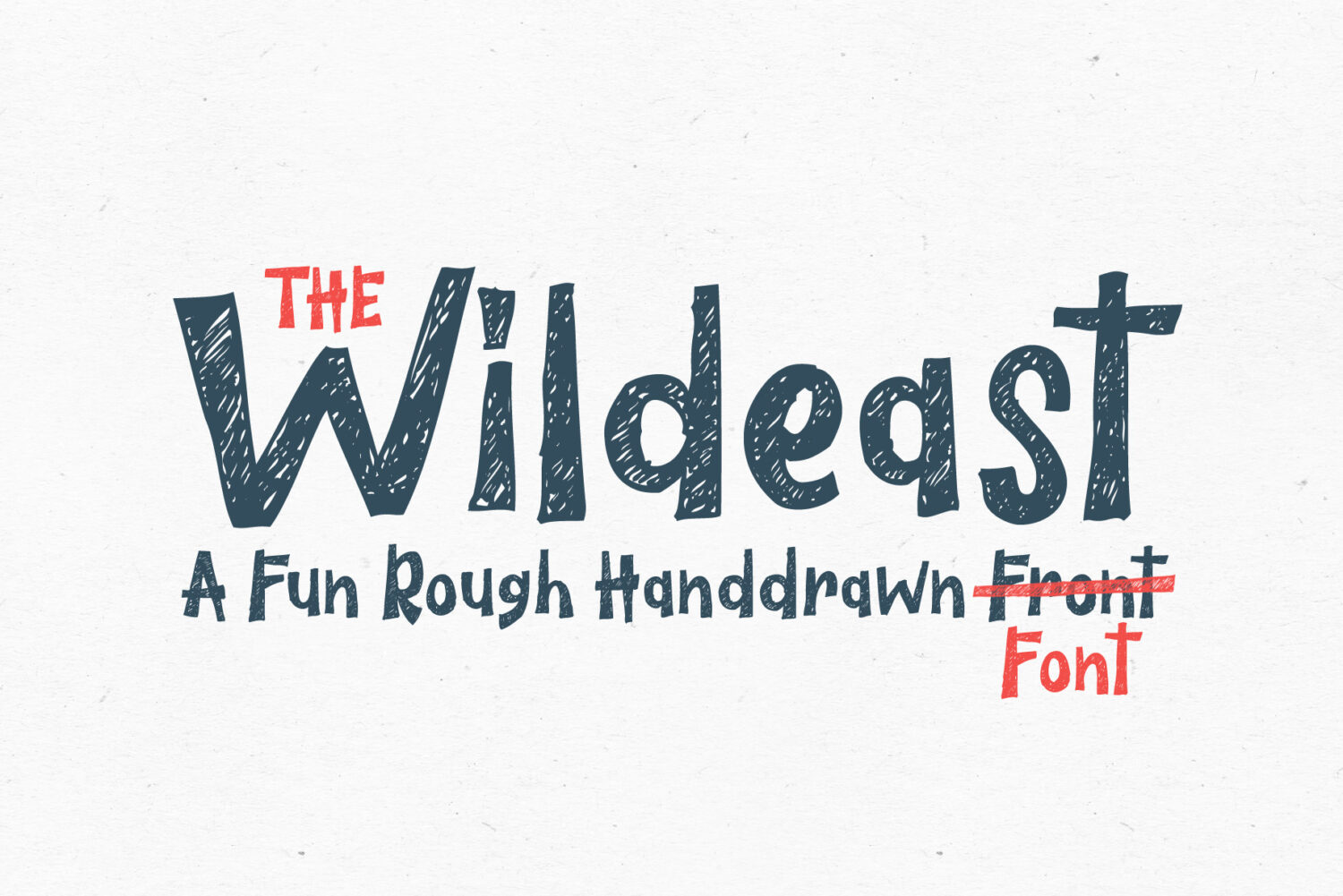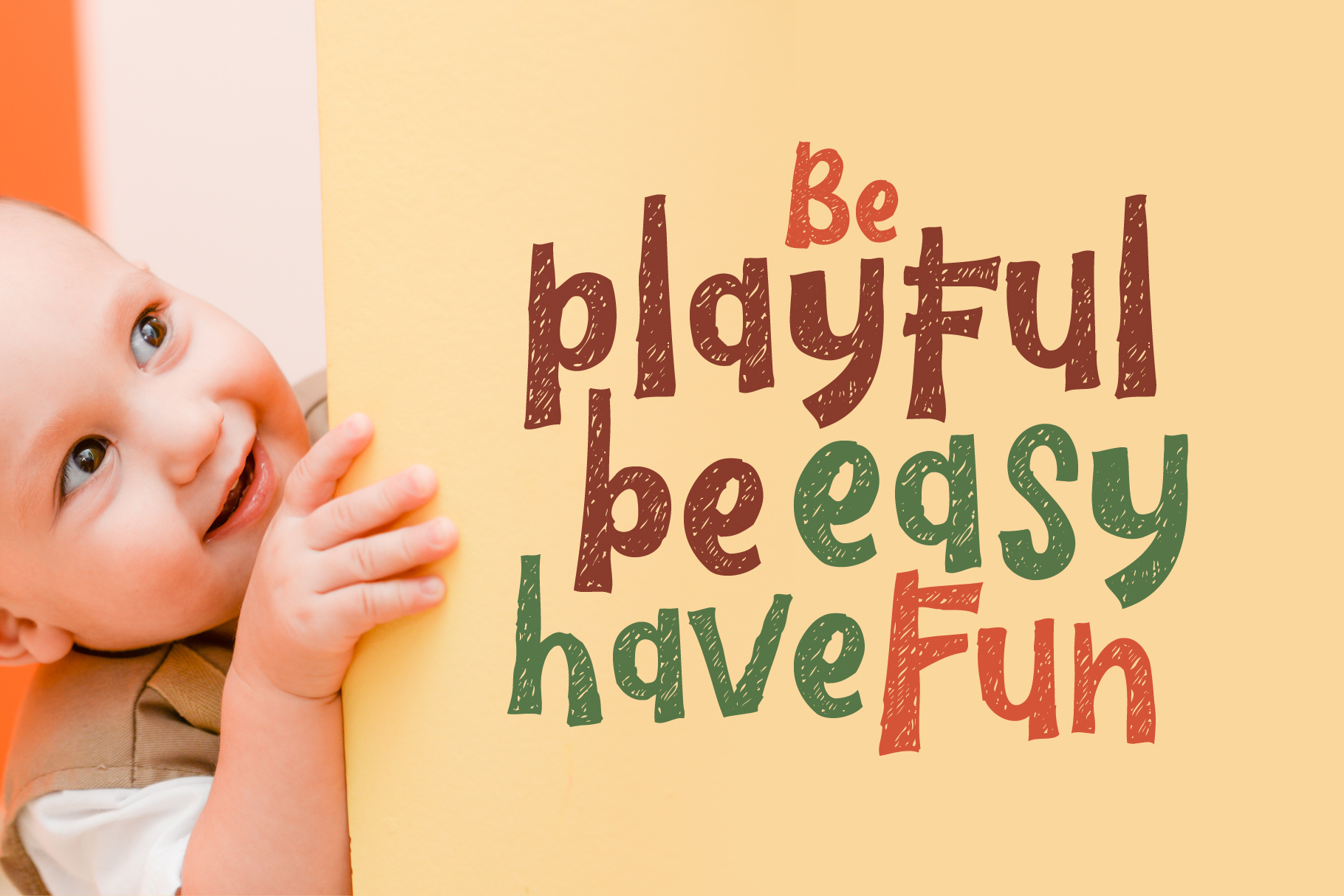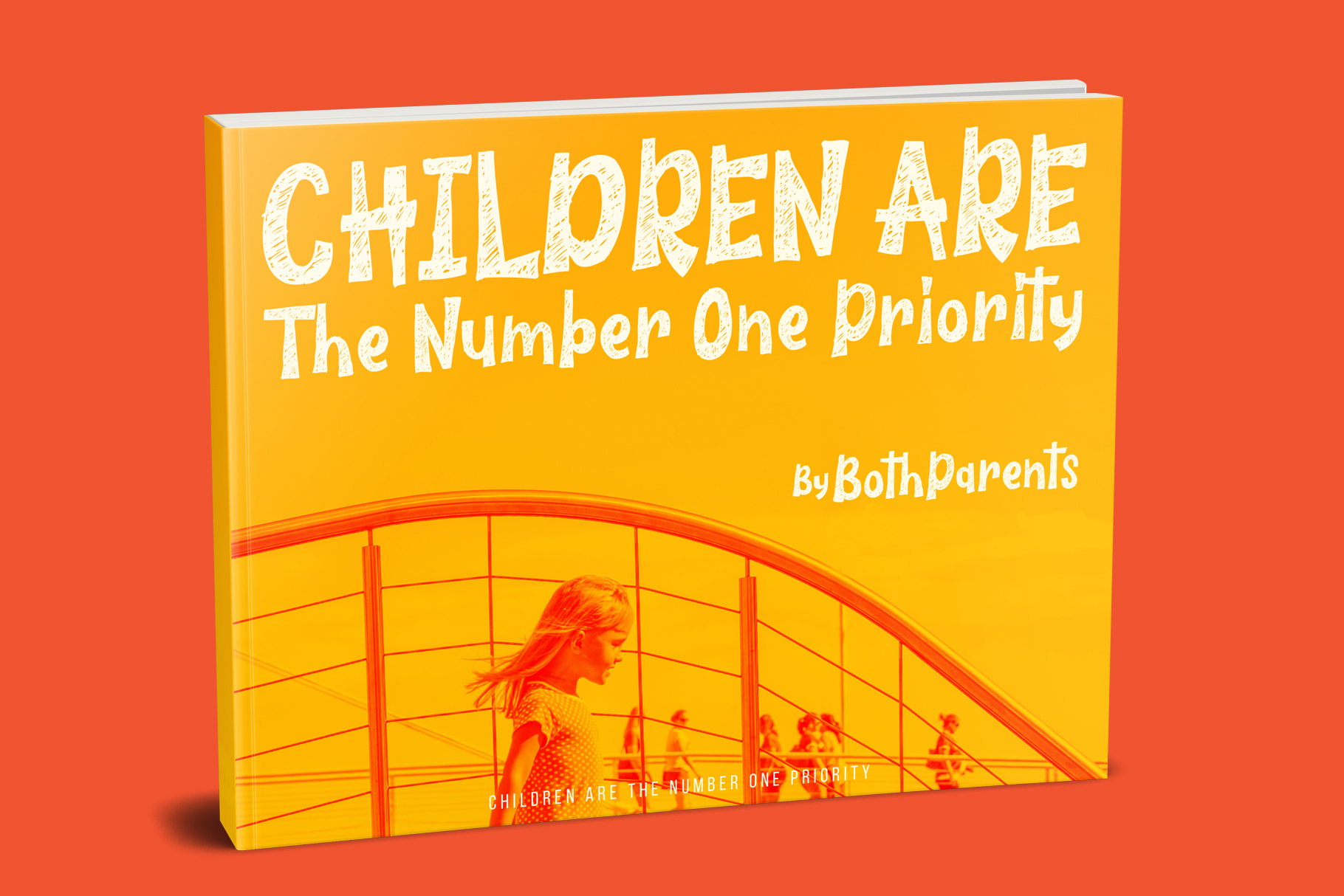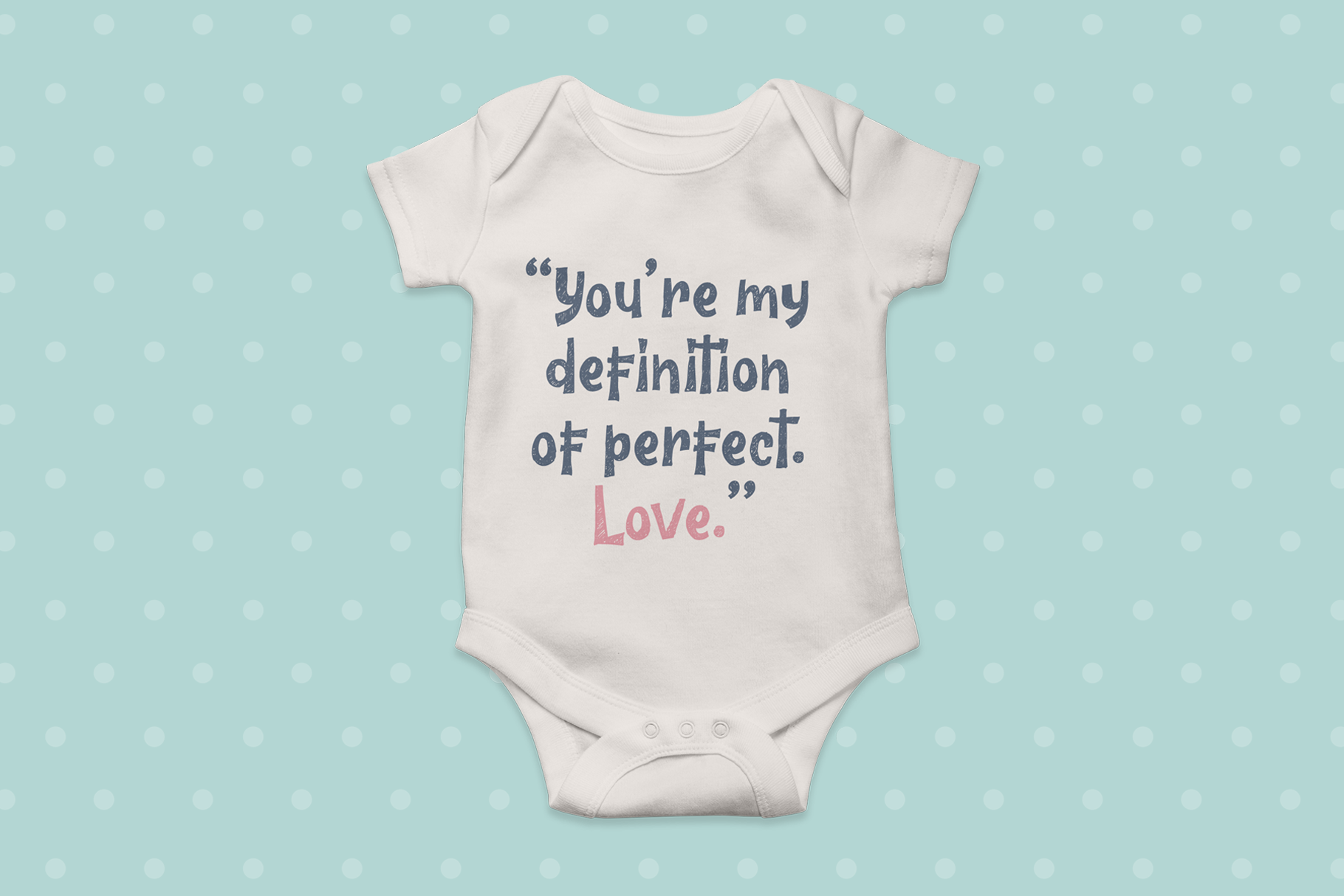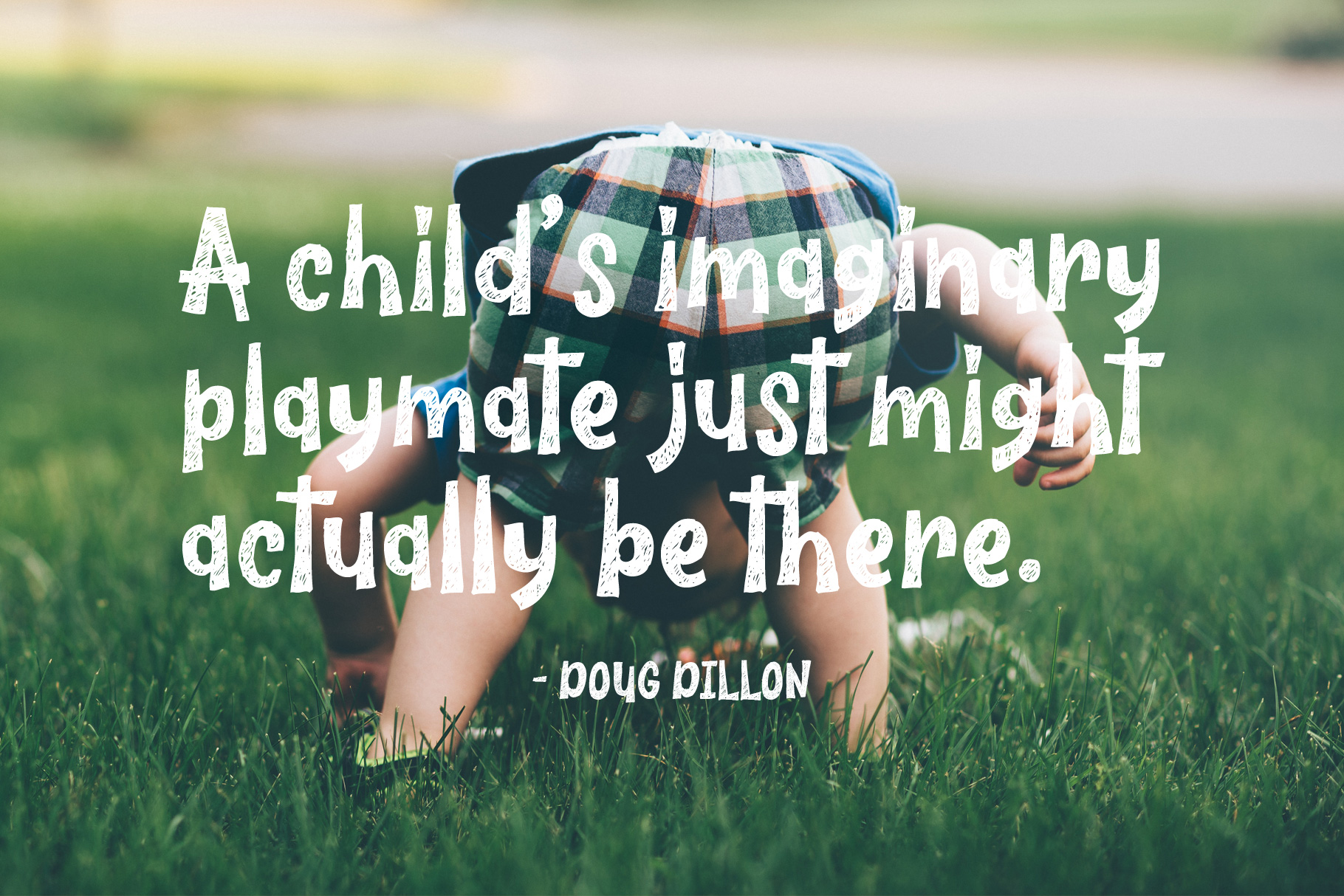
The Wildeast Free Font
The Wildeast Free Font is a fun rough hand-drawn font. It has a fun, natural, and dynamic style that makes it perfect for branding, poster, book covers, clothing designs, flyer, merchandise, packaging, quote, fashion campaigns, logo, movie, album covers, and offer design and more. This free typeface was designed by a talented Bagas Ardiatma. If you like it don’t forget to check out the full version.